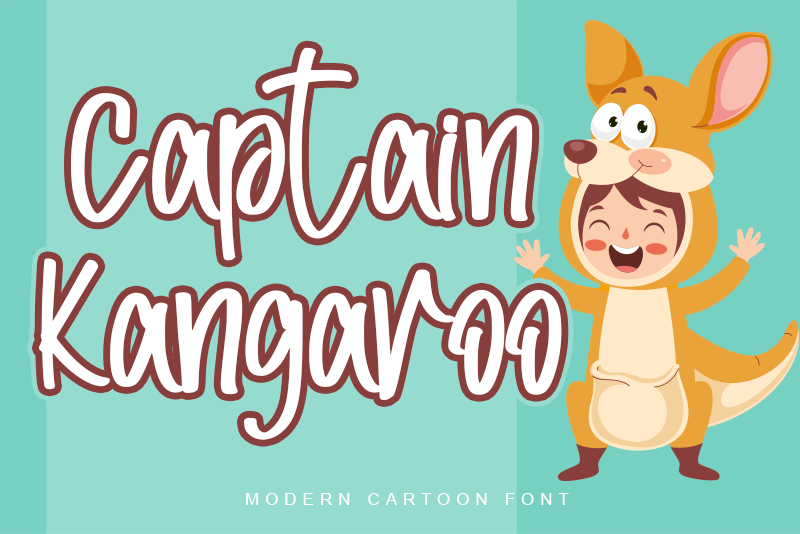
Captain Kangaroo
Seeking a charming and approachable handwritten font with a playful, whimsical feel? Look no further! This delightful font, reminiscent of classic children's illustrations, is perfect for designs that require a dash of warmth and personality.
With its cursive script and endearing imperfections, this font is ideal for projects that demand a touch of nostalgia or a sense of childhood wonder. It's a great choice for:
- Cartoon-inspired designs and animations
- Children's games, apps, and educational materials
- Quotes, titles, and headings that require a friendly tone
- Branding and logo design for family-friendly businesses or organizations
- Book covers, posters, and promotional materials that need an extra dose of charm
Whether you're creating something for kids or just want to add a sprinkle of magic to your design, this font is sure to bring a smile to faces. Its unique blend of elegance and playfulness makes it a versatile choice for a wide range of projects, from children's media to advertising and marketing materials.